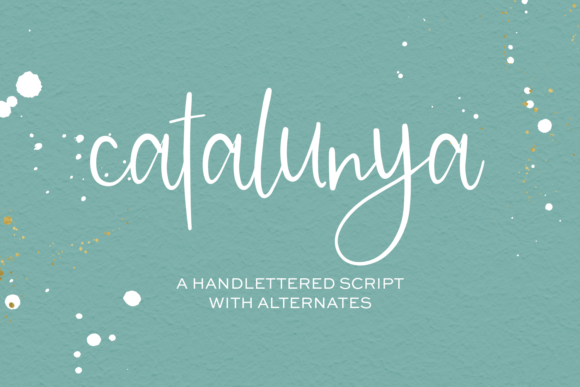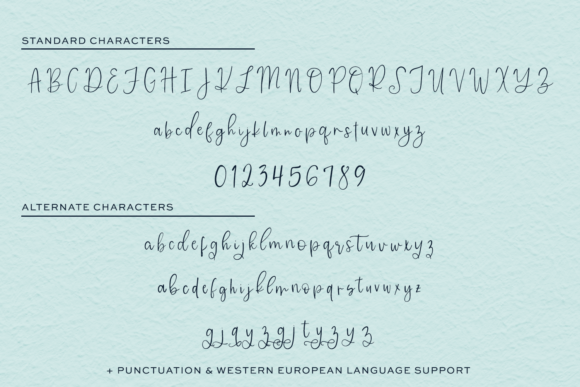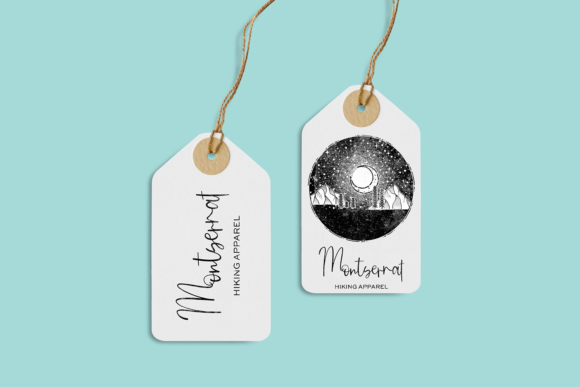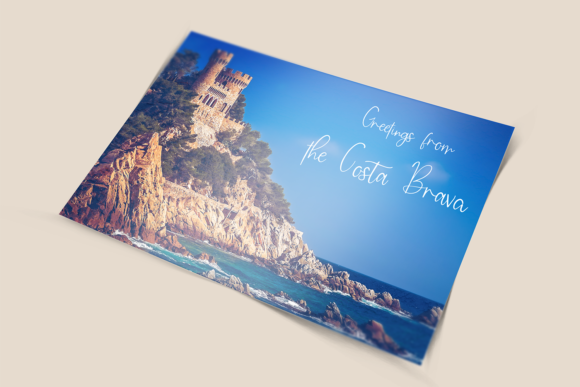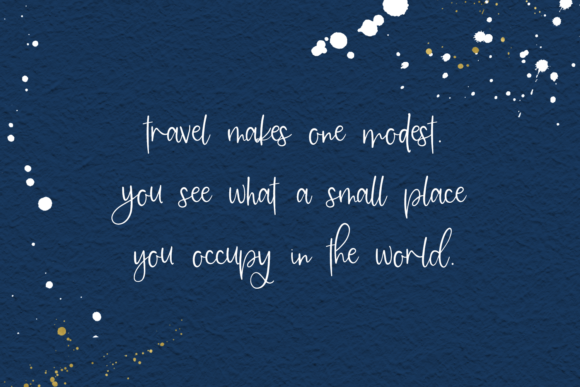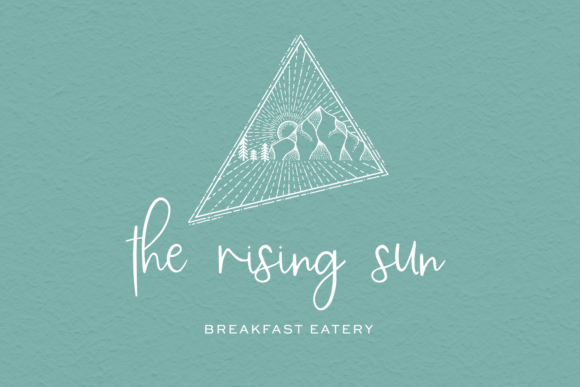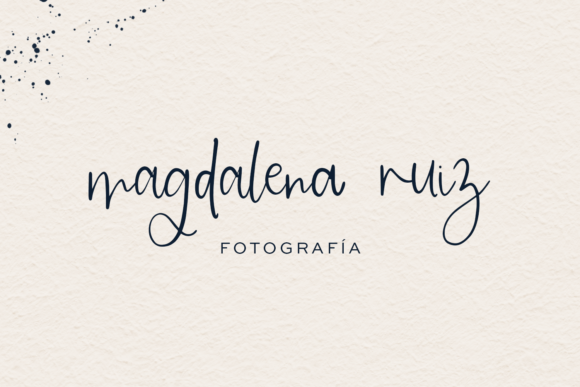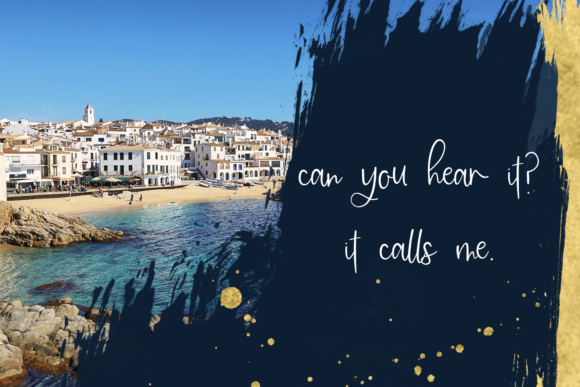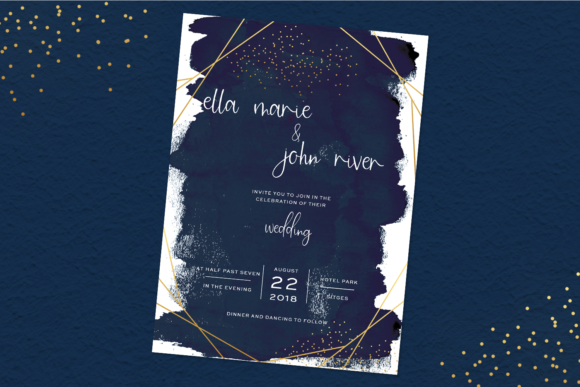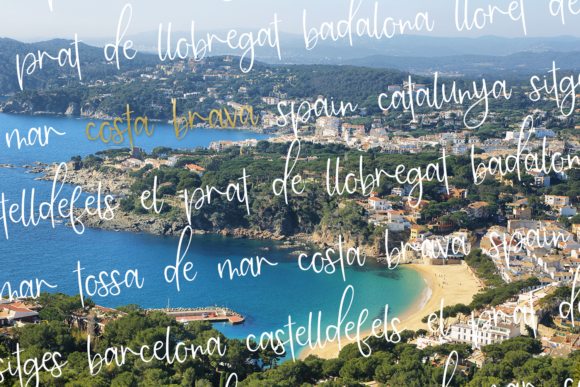
Catalunya Font
About Catalunya Font
Catalunya is fresh script that has a casual upbeat feel with plenty of options. It will add a romantic touch to any crafting project!